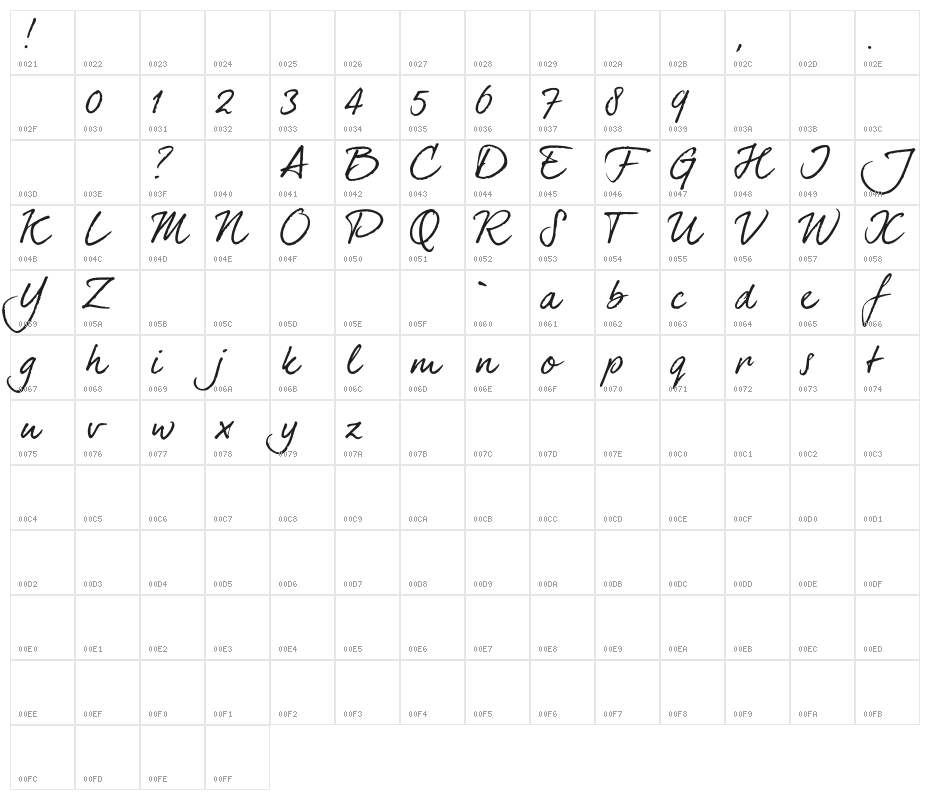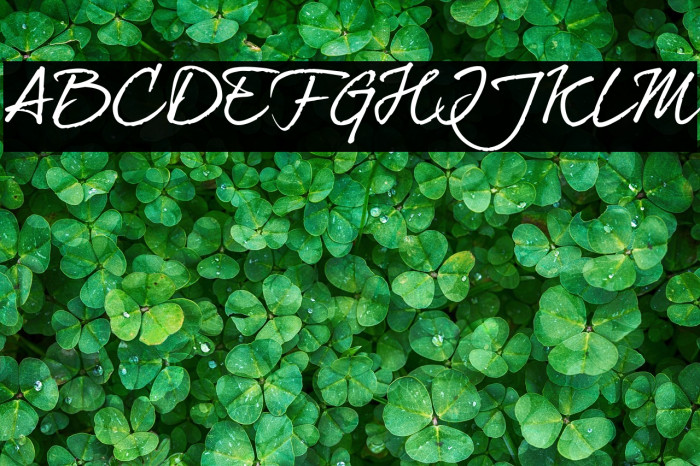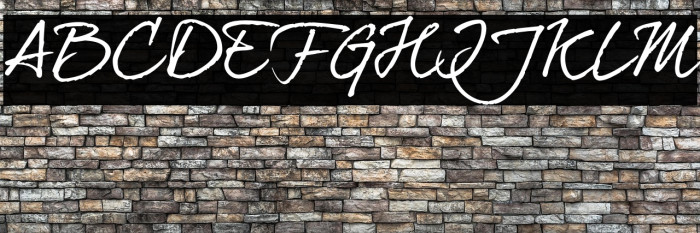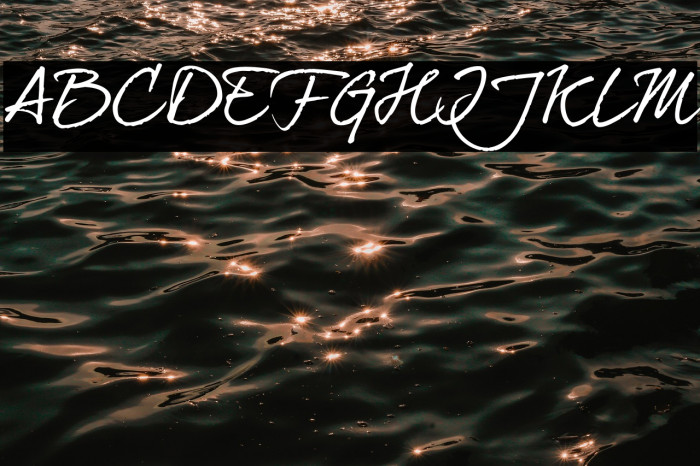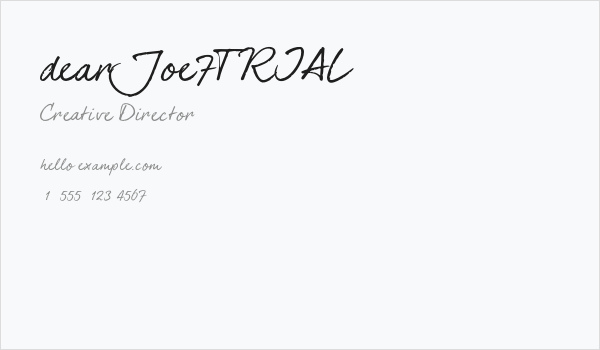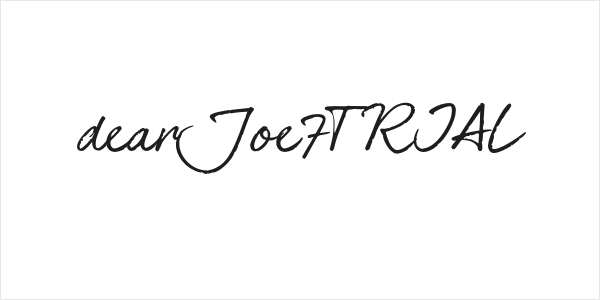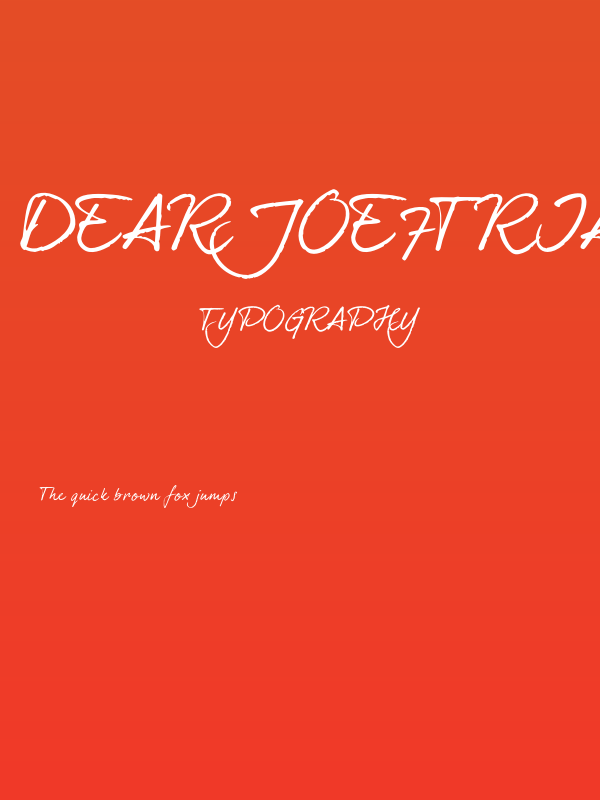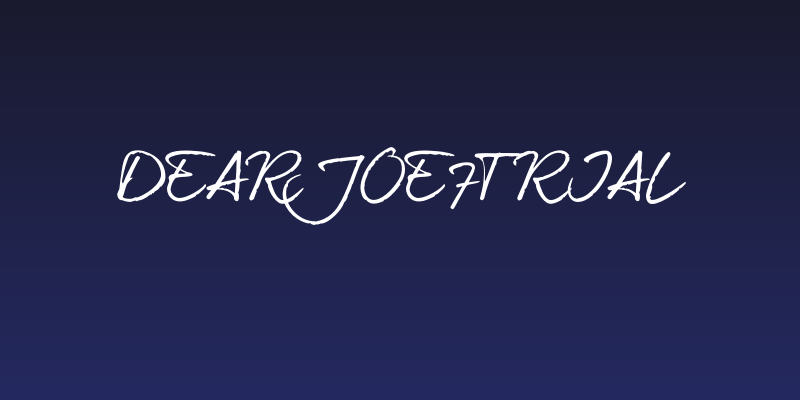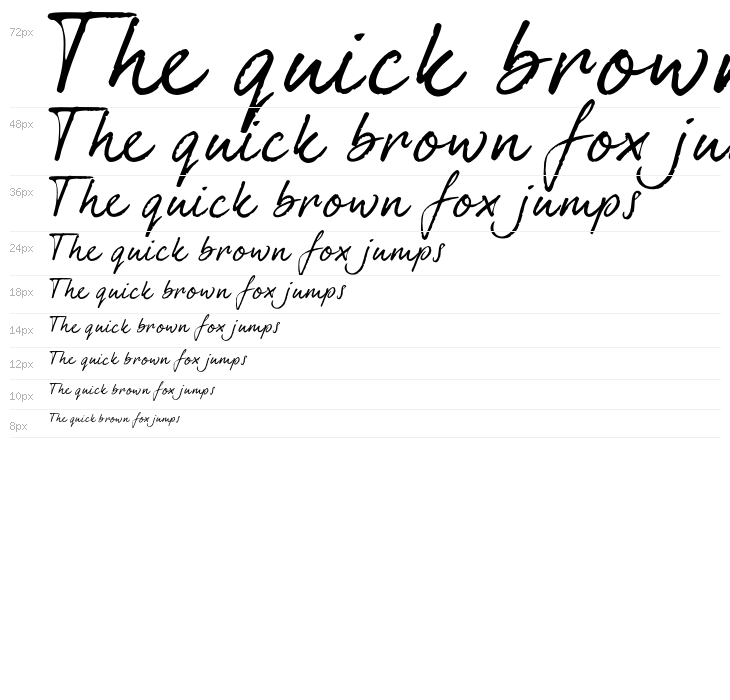
dearJoe7TRIAL Font
dearJoe7TRIAL Description
This font exudes a dynamic and fluid style, characterized by its cursive script that mimics the natural flow of handwriting. The letters are elegantly connected, creating a seamless and continuous appearance. The uppercase letters are bold and slightly slanted, adding a sense of movement and energy. The lowercase letters maintain a consistent flow, with smooth curves and loops that enhance the handwritten feel. Numbers are clear and legible, maintaining the same stylistic elements as the letters. The special characters are well-integrated, matching the overall aesthetic. This font is perfect for projects that require a personal touch, such as invitations, greeting cards, or branding materials that aim to convey elegance and sophistication.
| Overall Style | Elegant and sophisticated |
| Use Case | Invitations, Branding, Greeting Cards |
| Proposed Projects | Ideal for wedding invitations, personal branding, greeting cards, and elegant stationery. |